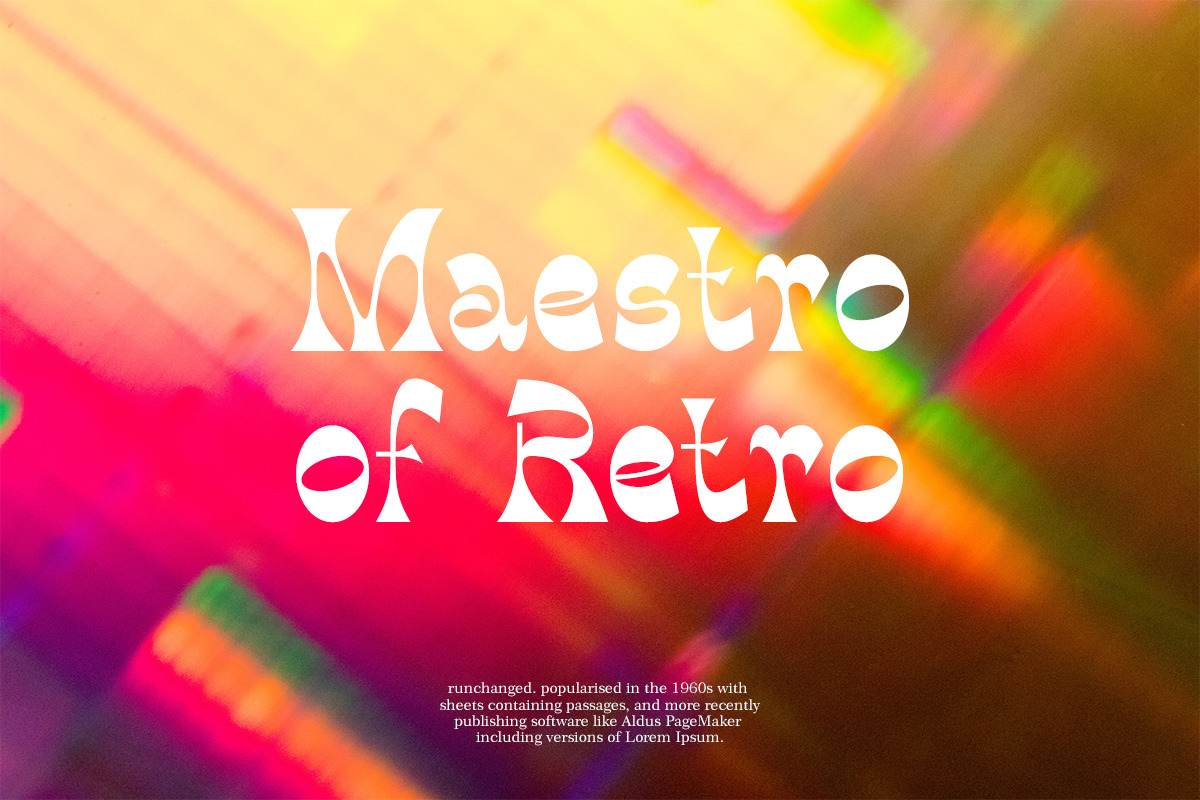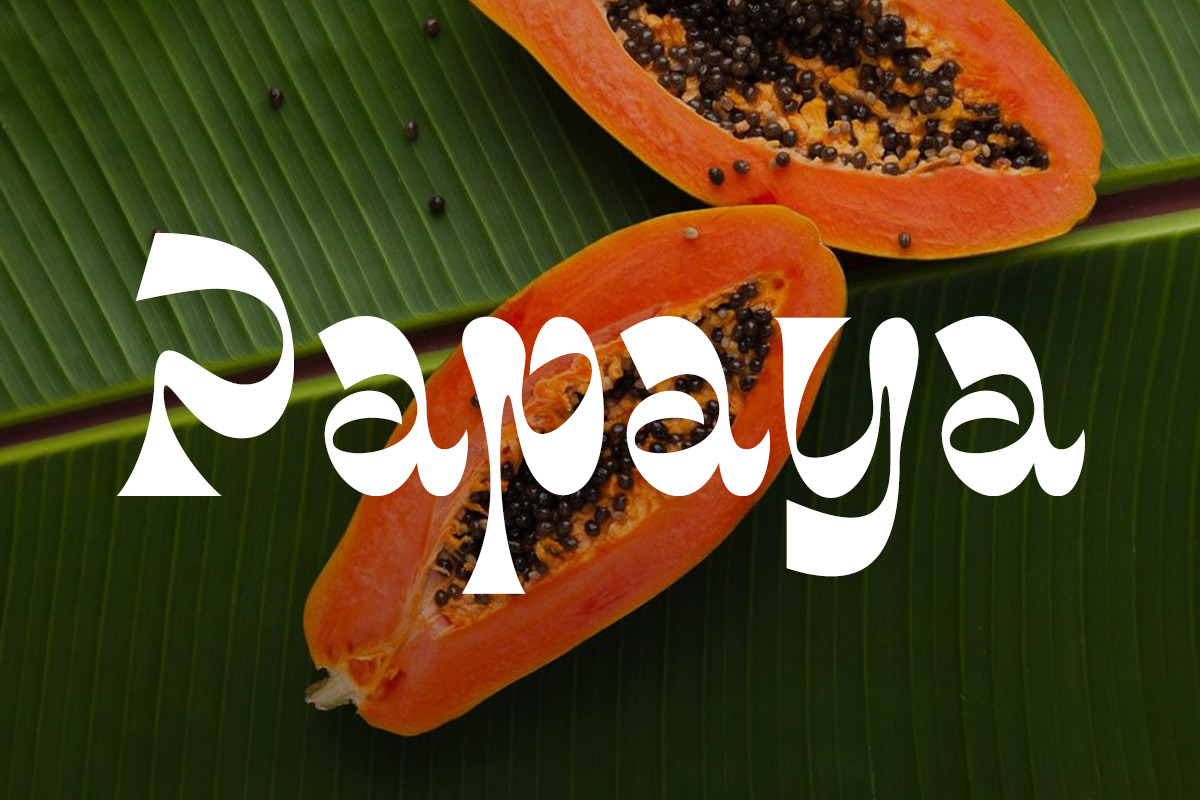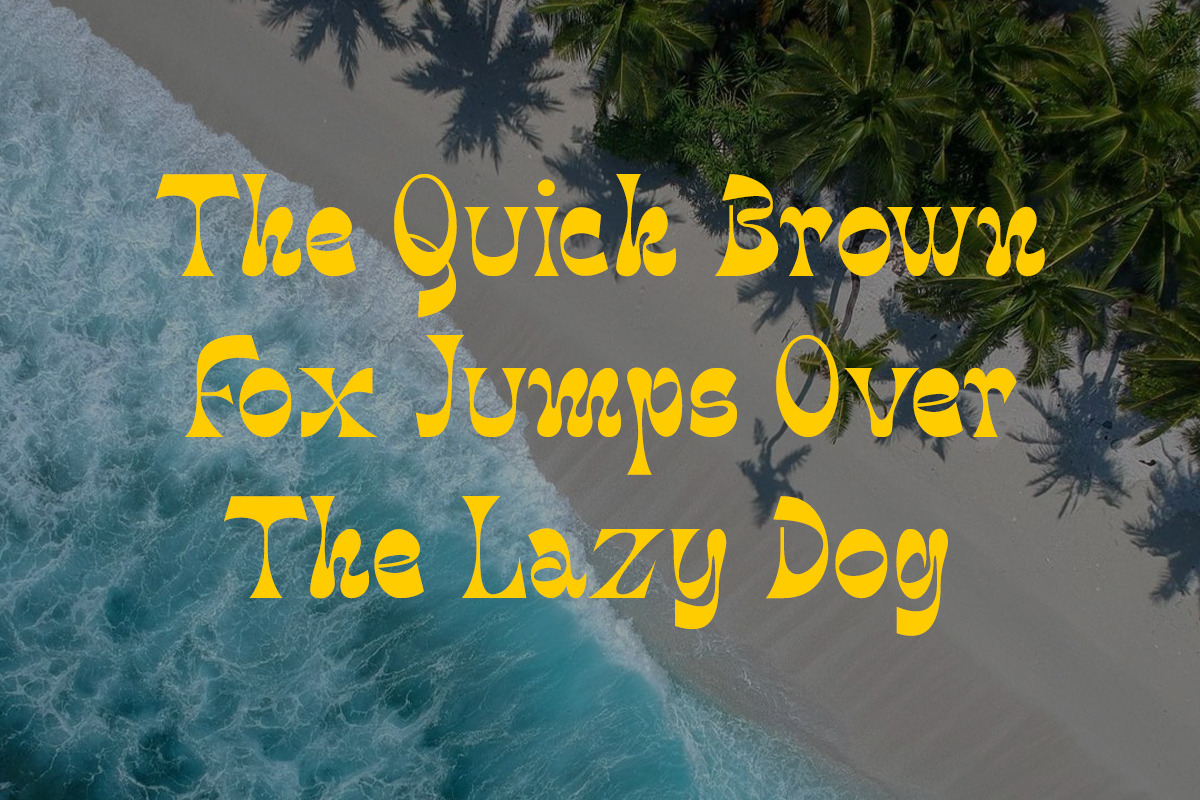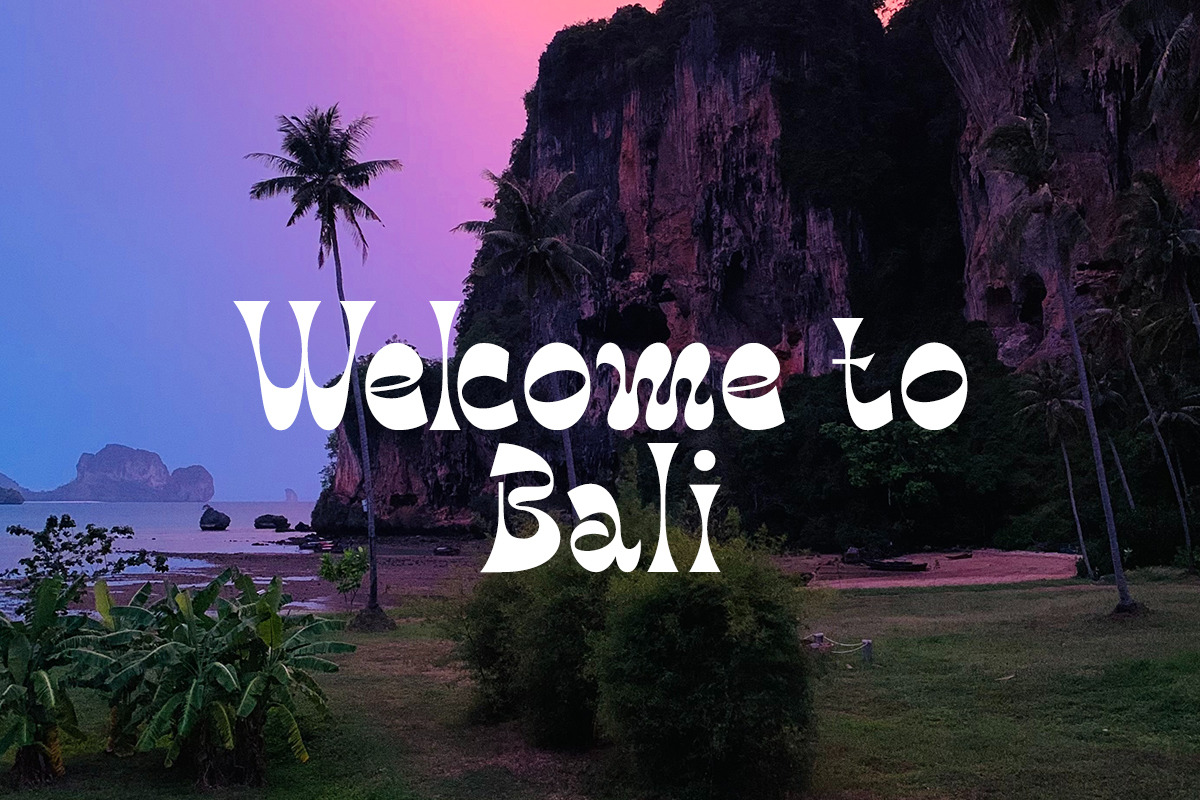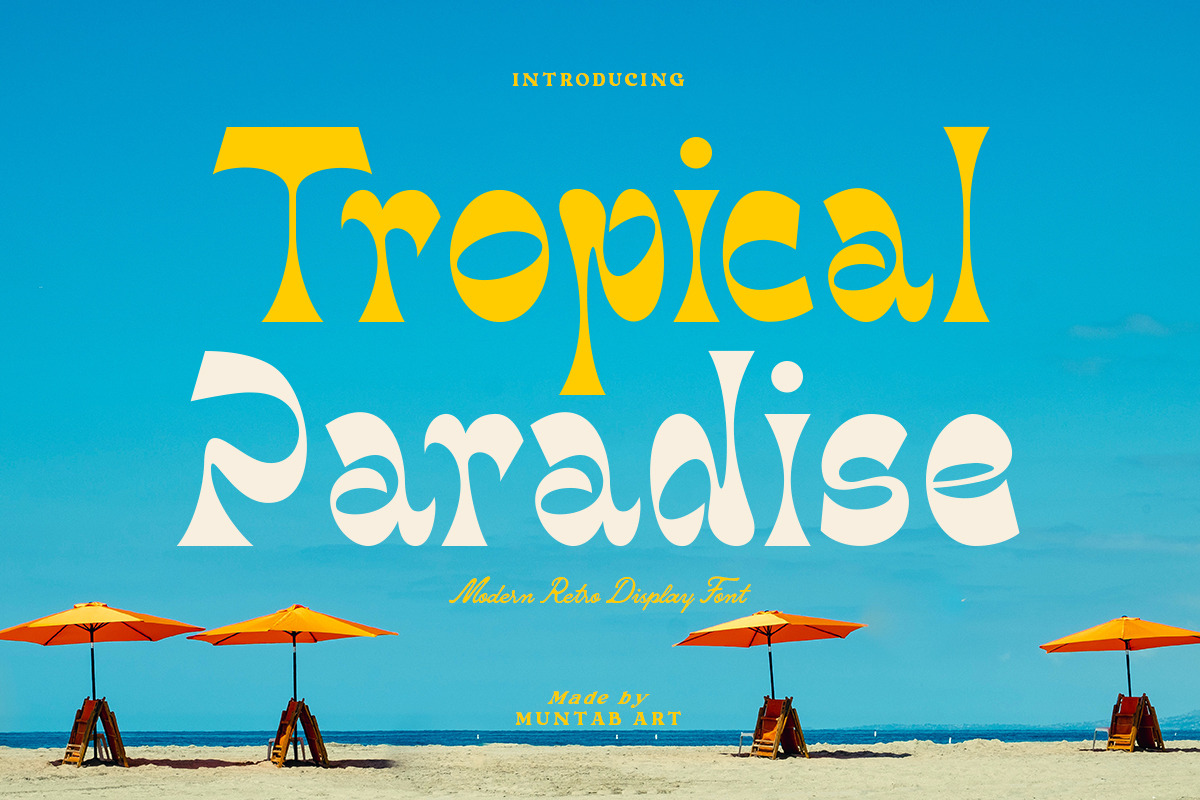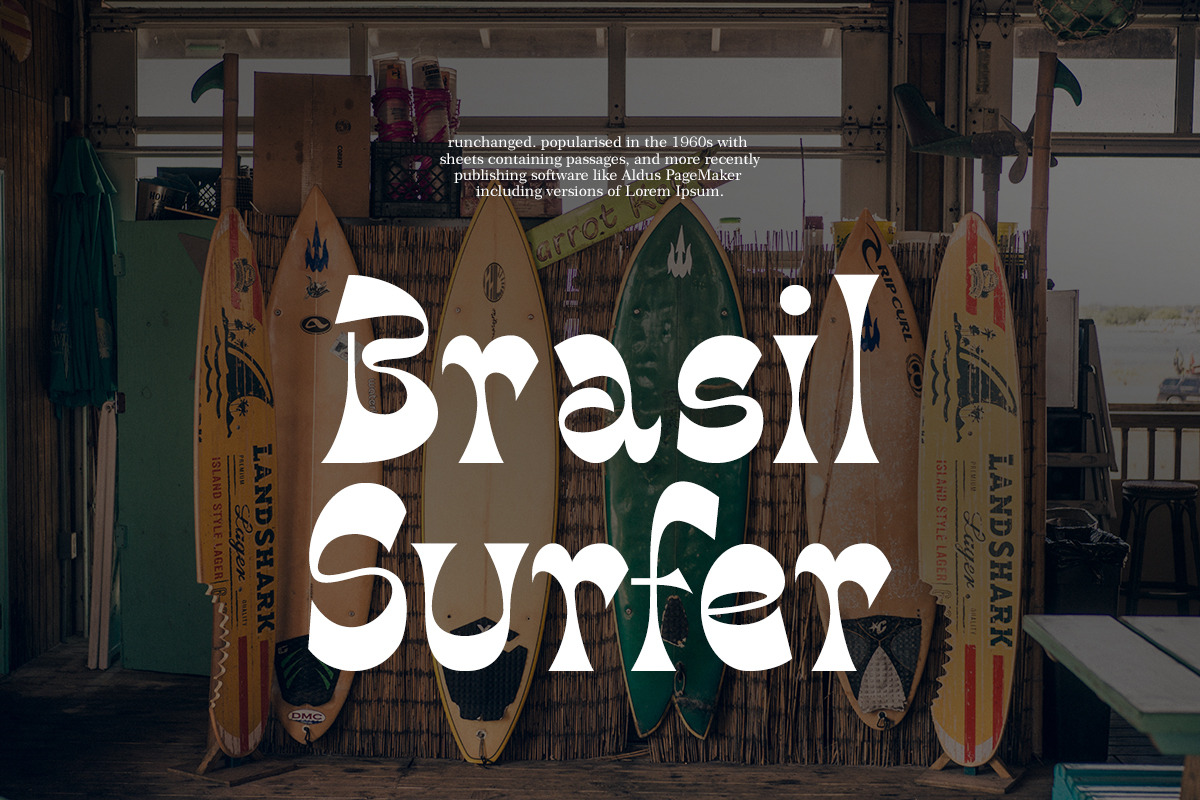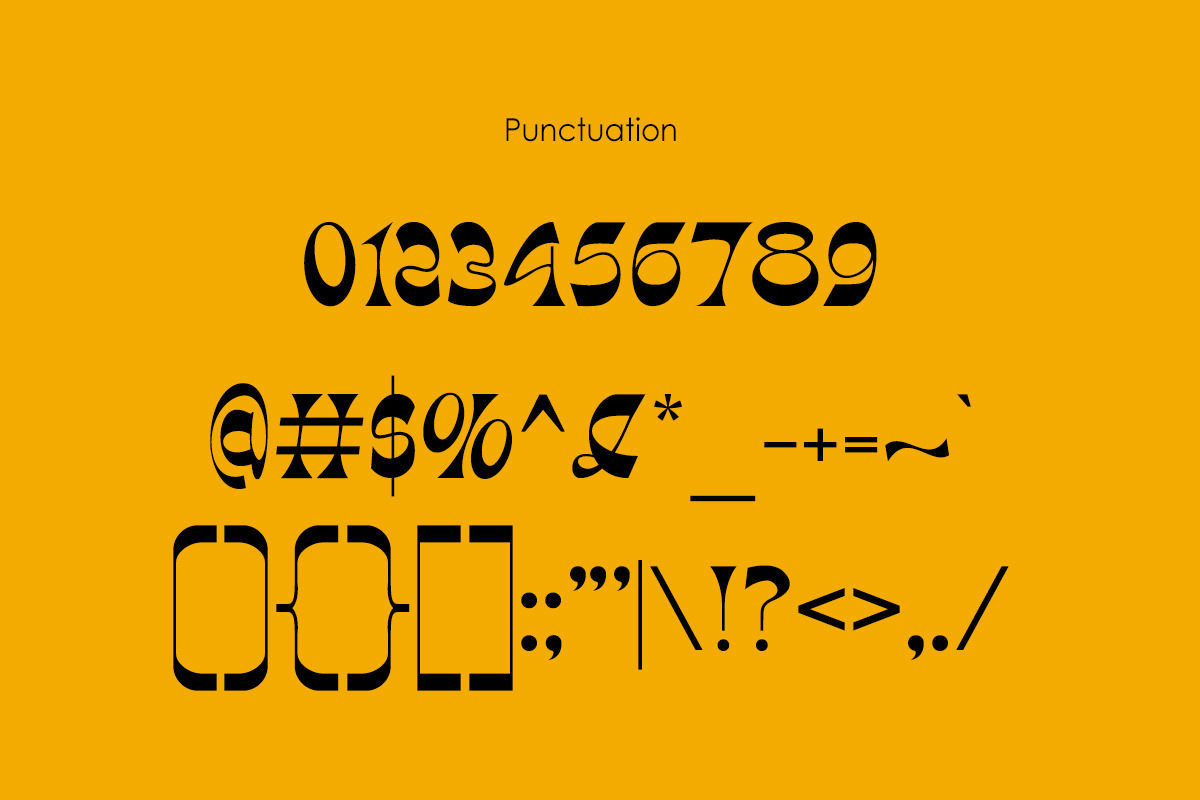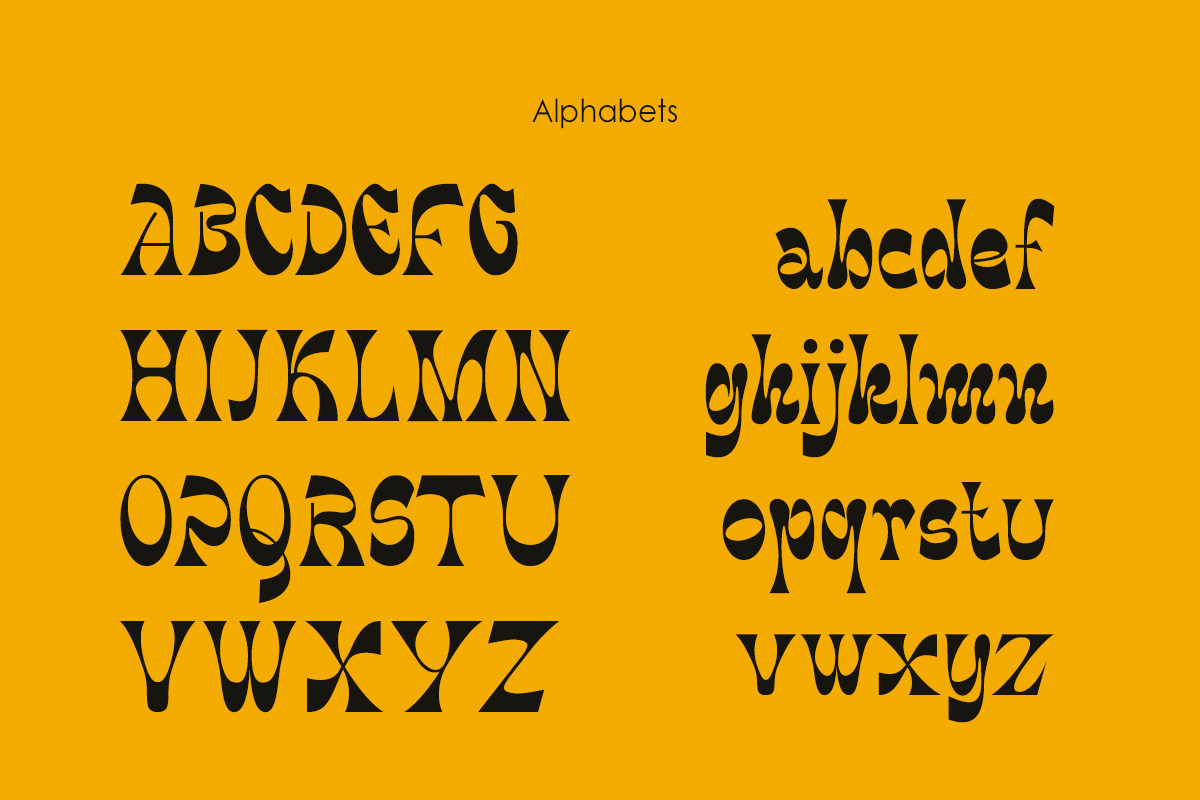
Tropical Paradise Retro Display Font
Tropical Paradise fonts includes uppercase letters, numerals, a large range of punctuation. Serif font with modern classic reverse contrast style. Created for poster, web design, branding, illustrations, badges and some other works.